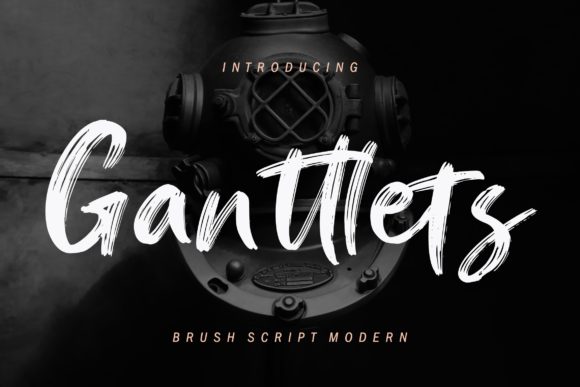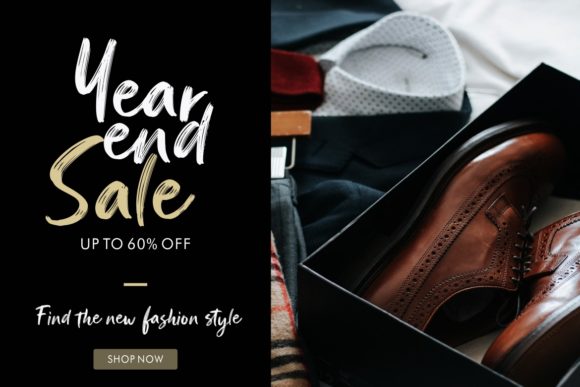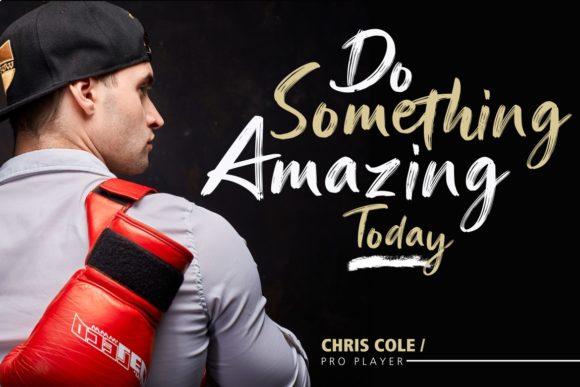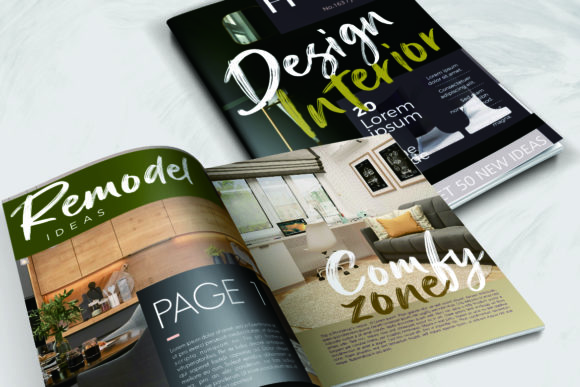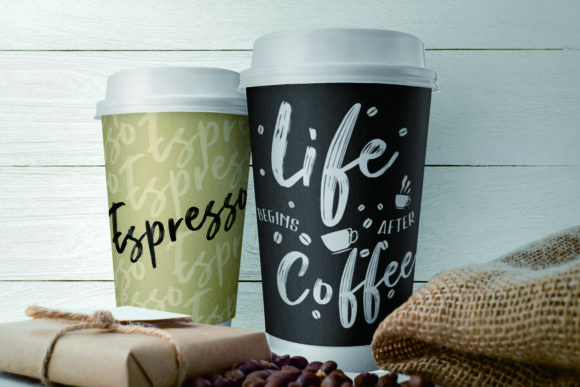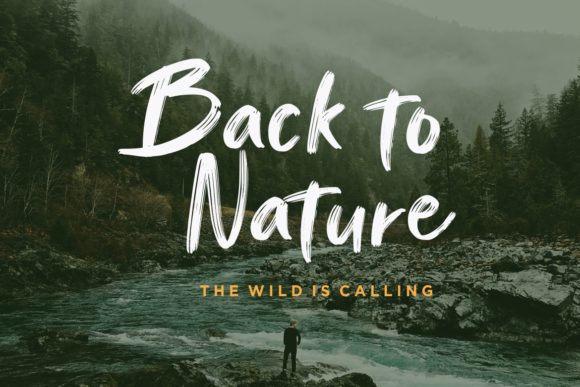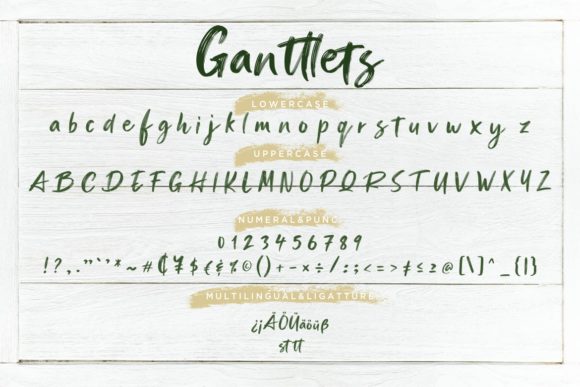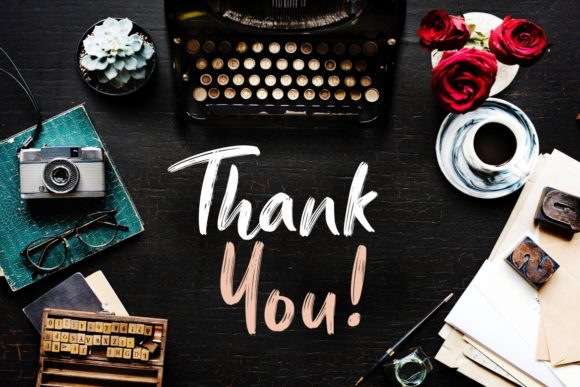
HomeScript FontsGanttlets Font Script Fonts Ganttlets Font FacebookXPinterestWhatsApp Ganttlets Font Poster 2 Ganttlets Font Poster 3 Ganttlets Font Poster 4 Ganttlets Font Poster 5 Ganttlets Font Poster 6 Ganttlets Font Poster 7 Ganttlets Font Poster 8 About Ganttlets Font Ganttlets is a one-of-a-kind script that will make any design project stand out from the crowd. DOWNLOAD NOW People also explored Adomania Font Mother Love Font Christmas Sock Font Zero to Hero Font Finolliya Font Perfect Font Play Globe Font Melantune Font Algiant Font 305 0 TagsGanttlets Font Previous articleGolden Class FontNext articleRusher Font LEAVE A REPLY Cancel reply Comment: Please enter your comment! Name:* Please enter your name here Email:* You have entered an incorrect email address! Please enter your email address here Website: Save my name, email, and website in this browser for the next time I comment. Personal Use Free Just Smile Personal Use Free Read more about this font Hommy You Personal Use Free Read more about this font Arnprior Personal Use Free Read more about this font Pasile Personal Use Free Read more about this font BLOG Best Fonts for YouTube Videos: Make Your Thumbnails Stand Out Best Fonts for YouTube Videos: Make Your Thumbnails Stand Out Choosing the right font can make a massive difference in how your YouTube videos perform.... Modern Sans-Serif Fonts That Brands Love in 2025 Free Fonts Risk: Why Free Fonts Can Be Dangerous for Designers 5 Fonts That Will Dominate Design Trends in 2026